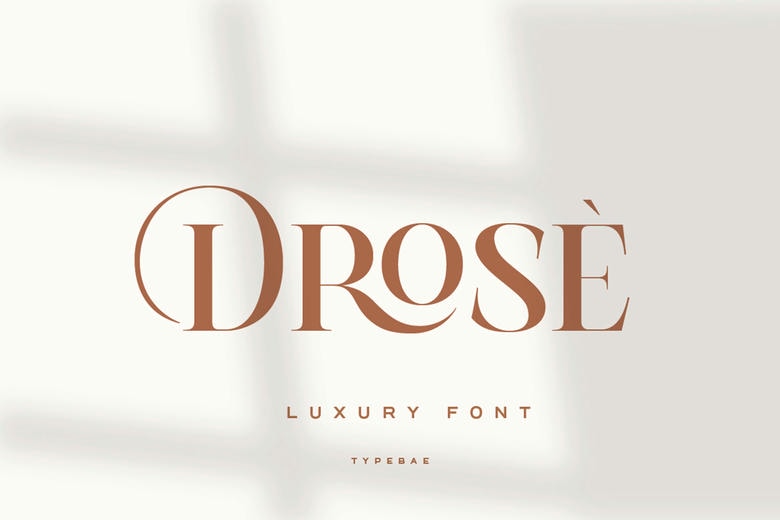
Drose Font
Drose is a contemporary luxury serif that has sleek curves and high quality contrasts. It is ideal in logos, fashion branding, editorial designs, invitations, magazines and high-end packaging because it is designed to appear elegant and sophisticated. Drose is beautiful, and it is always classy, clean, and expressive.
Drose Serif Font